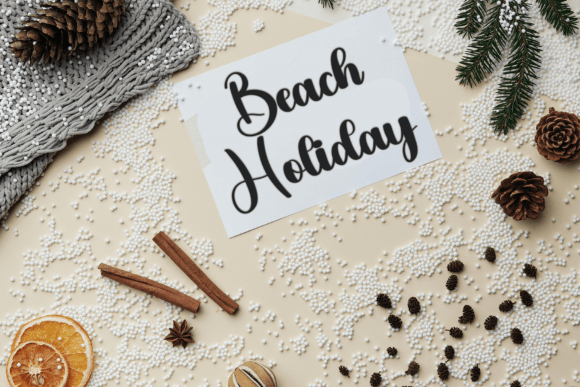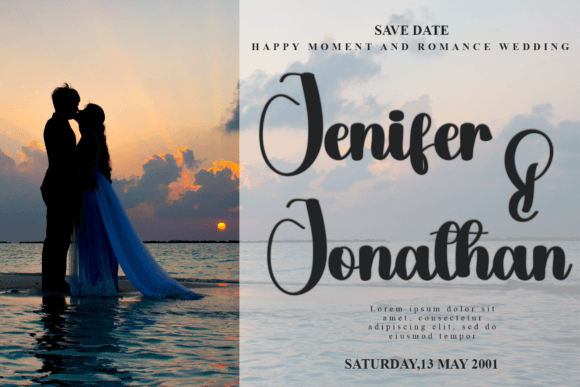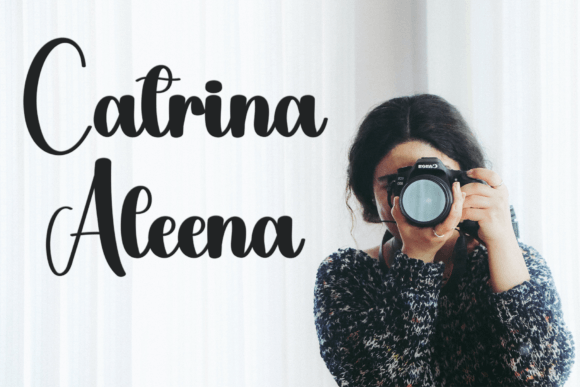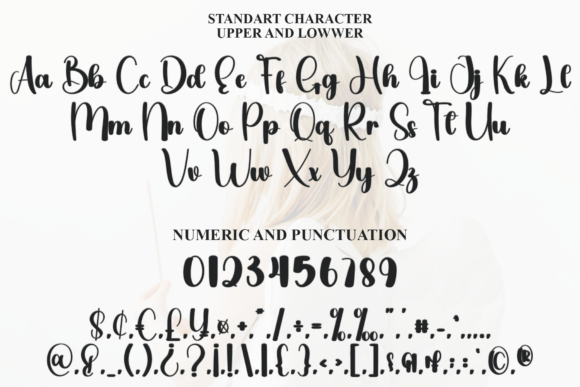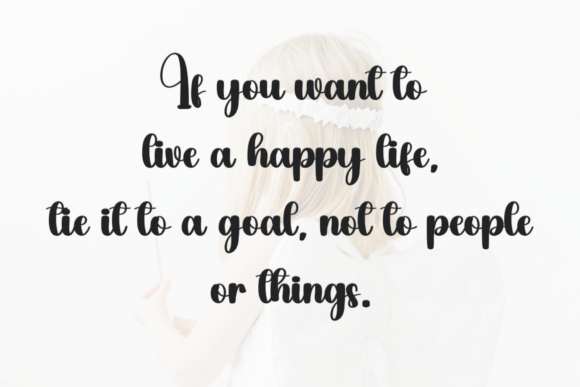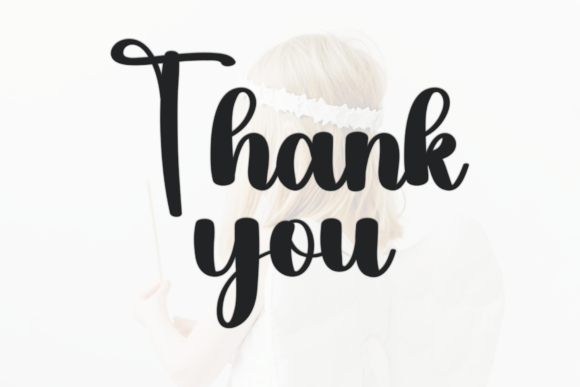
Introducing Angela Font: Elevate Your Designs with Elegance and Magic
Are you a designer, crafter, or DIY enthusiast looking for a font that can add a touch of sophistication and whimsy to your projects? Look no further than Angela Font, a beautiful handwritten script that is sure to transform your creative ideas into stunning works of art. In this article, we’ll dive into the world of Angela Font, exploring its features, benefits, and uses, as well as provide tips and inspiration for incorporating it into your designs.
The Story Behind Angela Font
Angela Font is a carefully crafted handwritten font, designed to bring a sense of elegance and magic to your designs. With its flowing script and delicate lettering, this font is perfect for adding a touch of sophistication to any project. Whether you’re creating social media graphics, DIY crafts, or professional marketing materials, Angela Font is the perfect choice.
Key Features of Angela Font
- Handwritten Script: Angela Font features a beautiful, handwritten script that adds a personal touch to your designs.
- Elegant and Whimsical: This font combines elegance and whimsy, making it perfect for a wide range of projects, from formal invitations to playful DIY crafts.
- Magical Touch: With its flowing letters and delicate details, Angela Font adds a touch of magic to your designs, making them stand out from the crowd.
- Versatile: This font is suitable for a variety of projects, including social media graphics, calligraphy scripts, DIY projects, and more.
Uses for Angela Font
Angela Font is a versatile font that can be used in a variety of projects, including:
- Instagram and Social Media Graphics: Add a touch of elegance to your social media posts with Angela Font.
- Calligraphy Scripts: Use Angela Font to create beautiful calligraphy scripts for DIY projects, such as wedding invitations, greeting cards, and more.
- DIY Projects: From scrapbooking to crafting, Angela Font is the perfect choice for adding a personal touch to your DIY projects.
- Marketing Materials: Use Angela Font to add a touch of sophistication to your marketing materials, such as brochures, flyers, and business cards.
Tips for Using Angela Font
Here are a few tips for getting the most out of Angela Font:
- Experiment with Sizes and Colors: Angela Font looks great in a variety of sizes and colors, so don’t be afraid to experiment and find the perfect combination for your project.
- Pair with Other Fonts: Angela Font pairs well with other fonts, so try combining it with a bold font for headings or a clean font for body text.
- Add Decorations: Consider adding decorations, such as flourishes or swashes, to give your text a more elegant and whimsical feel.
Here are a few ideas to get you started with Angela Font:
- Wedding Invitations: Use Angela Font to create beautiful, elegant wedding invitations that set the tone for your special day.
- DIY Crafts: Add a personal touch to your DIY crafts, such as scrapbooking, card making, or woodworking, with Angela Font.
- Social Media Campaigns: Use Angela Font to add a touch of sophistication to your social media campaigns, including Instagram posts, Facebook ads, and more.